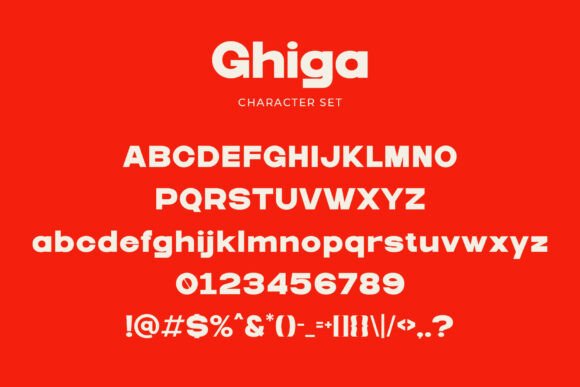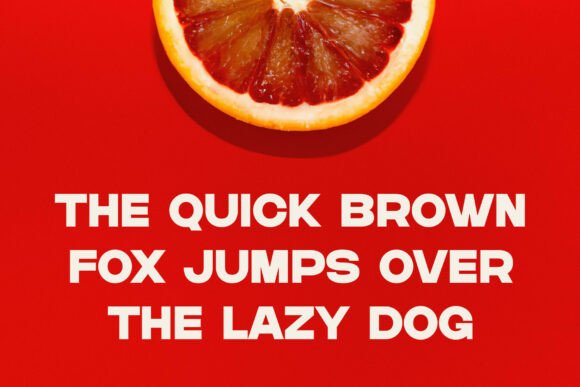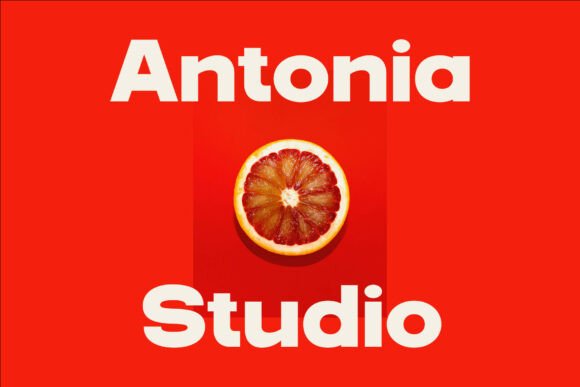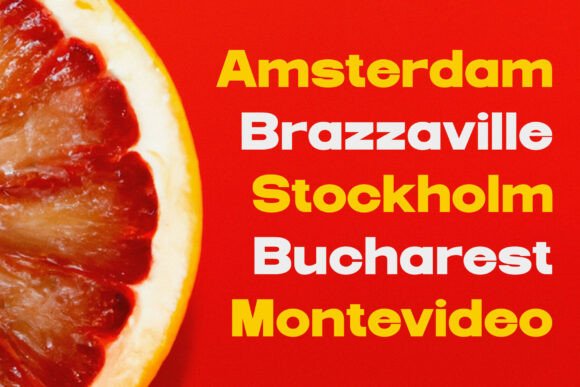
Introducing Ghiga Font: The Bold and Assertive Sans Serif for Your Creative Arsenal
In the world of typography, fonts play a crucial role in shaping the visual identity of a design. A well-chosen font can elevate a creation from ordinary to extraordinary. If you’re a designer, crafter, or simply a creative enthusiast, you’re likely always on the lookout for fonts that can add a touch of personality and professionalism to your work. This is where Ghiga Font comes in – a bold and assertive sans serif font designed to make a statement.
What is Ghiga Font?
Ghiga Font is a modern sans serif font that exudes confidence and sophistication. Its clean lines, precise curves, and carefully crafted letterforms make it an excellent choice for a wide range of design applications. Whether you’re working on a logo, branding materials, website, or print project, Ghiga Font is sure to leave a lasting impression.
Key Features of Ghiga Font
- Bold and Assertive: Ghiga Font is designed to make a statement. Its bold strokes and assertive letterforms ensure that your text stands out from the crowd.
- Clean and Modern: The font’s clean lines and modern aesthetic make it perfect for designs that require a touch of sophistication and elegance.
- Highly Versatile: Ghiga Font can be used for a wide range of design applications, from logos and branding materials to websites and print projects.
- Easy to Read: Despite its bold nature, Ghiga Font remains highly legible, making it an excellent choice for body text and headings.
Why Choose Ghiga Font?
With so many fonts available, why choose Ghiga Font? Here are just a few reasons why Ghiga Font should be a part of your font library:
- Elevate Your Designs: Ghiga Font has the potential to elevate any creation, adding a touch of sophistication and professionalism.
- Stand Out from the Crowd: With its bold and assertive design, Ghiga Font ensures that your text stands out from the crowd.
- Save Time: With Ghiga Font, you can create stunning designs in no time. Its versatility and ease of use make it an excellent choice for designers who need to work quickly.
How to Use Ghiga Font in Your Designs
Using Ghiga Font in your designs is easy. Here are a few tips to get you started:
- Pair it with Other Fonts: Ghiga Font works well with other fonts, making it easy to create stunning font combinations.
- Experiment with Sizes and Colors: Don’t be afraid to experiment with different sizes and colors to create visual interest.
- Use it for Headings and Titles: Ghiga Font is perfect for headings and titles, where its bold and assertive design can make a statement.
| Font Name | Ghiga Font |
| Author | Ariya Works Studio |
In conclusion, Ghiga Font is an incredible asset to any font library. Its bold and assertive design, versatility, and ease of use make it an excellent choice for designers, crafters, and creative enthusiasts. Whether you’re working on a logo, branding materials, website, or print project, Ghiga Font is sure to elevate your creation and leave a lasting impression.